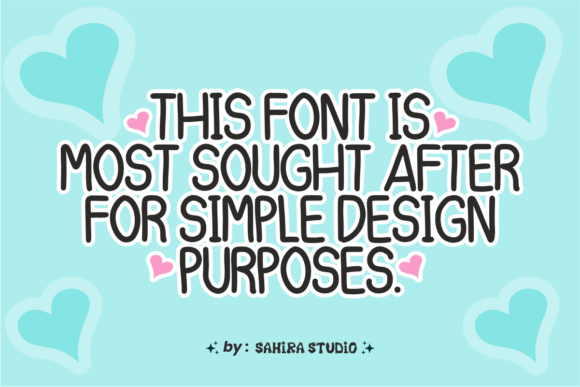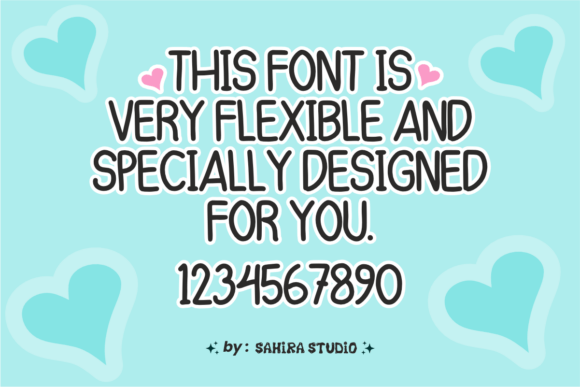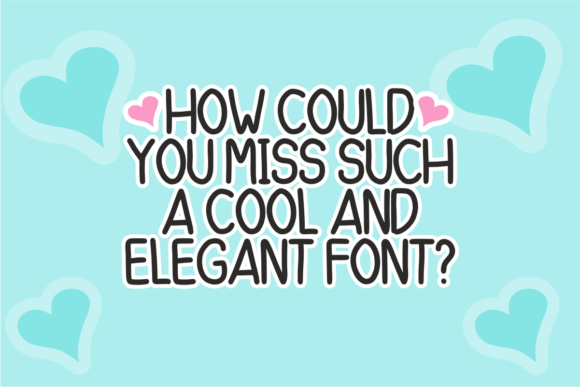
Introduction to Little Sahira Font
Little Sahira is an elegant, handcrafted font.
Whatever the theme, this font will be a fantastic addition to your font library, as it has the potential to enhance any creation From logos and greeting cards to mugs and t-shirts, invitations, creative crafts, comics, and more, this font has the potential to enhance any work.
Little Sahira Font offers exceptional quality and versatility, making it a valuable addition to your design toolkit. Whether you’re creating for personal projects or commercial use, Little Sahira Font delivers professional results.